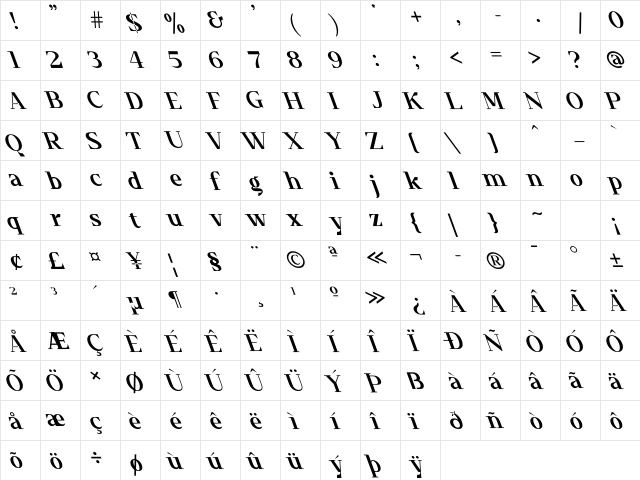
Timeline Oblique Regular
Design Context for Timeline Oblique Typeface
Timeline Oblique is a composed and adaptable typeface that performs quietly and consistently across a wide range of design contexts. Its italic angle brings a sense of urgency and motion to the letterforms.
Pro Tip: Use Timeline Oblique for emphasis, pull quotes, and subheadings where its slanted energy can add rhythm to the layout.